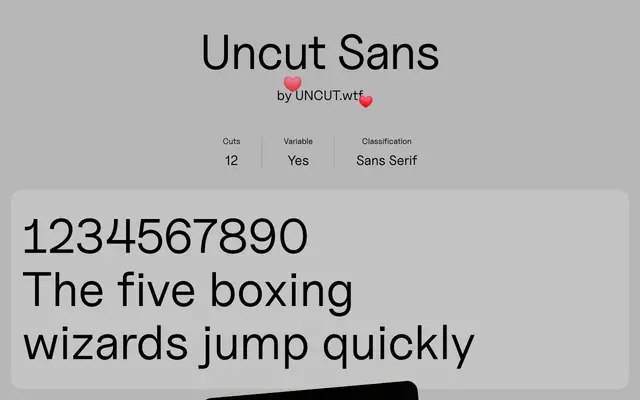
Uncut Sans
A free, open-licence sans-serif available in 12 cuts including a variable font, released by Uncut for commercial and personal use.
Listed under sans-serif classification on the foundry's own site; the name and general presentation suggest a straightforward grotesque or neutral sans-serif design.